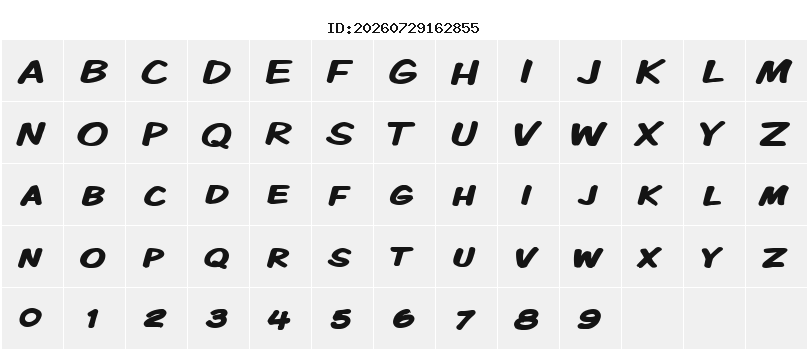
Komika Display Kaps Wide Preview
• Font Name: Komika Display Kaps Wide
• Designer: WolfBainX
About Komika Display Kaps Wide.ttf
Komika Display Kaps Wide.ttf is a modern, elegant sans-serif font designed for ultimate readability and visual harmony. Perfect for branding, headlines, web design, and print materials.